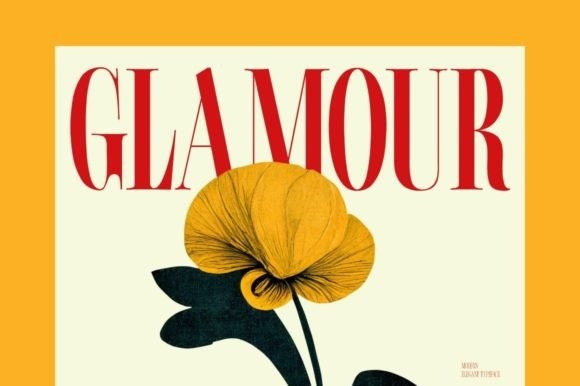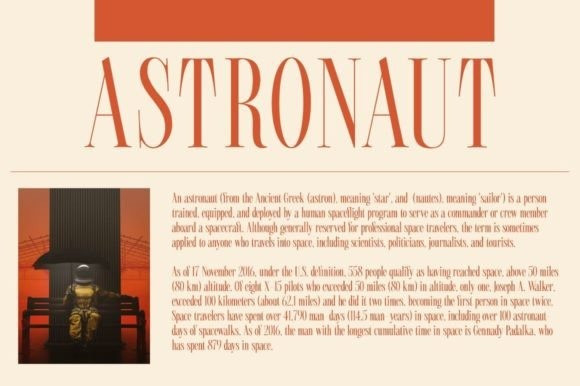
Lunette Font
Lunette Font a strong and classy font with an elegant touch. It boasts 3 stunning styles, full beautiful upper and lower case letters, number and punctuation marks. Lunette is perfectly suitable for displays for headings, logos, branding, magazines, product packaging, invitations and so much more!